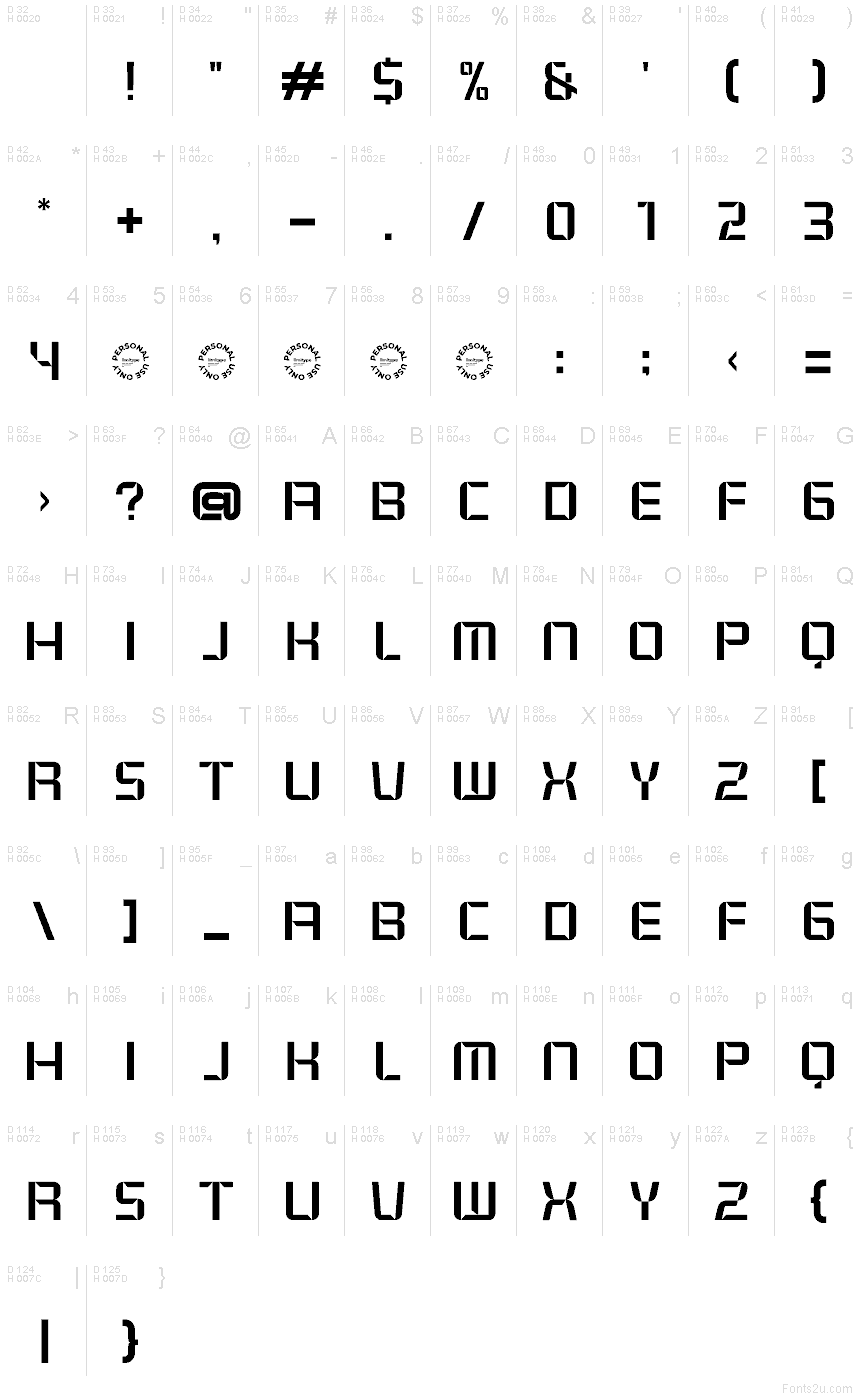
Roxta font by Limitype is a futuristic display font with an expanded style. With its modern, geometric appearance, it is all about strong presence mixed with minimalistic design elements. Discover this rarely seen font vibe and use it to make your projects stand out.
Use this free display font for clothing brand logos, video games, musical albums or posters particularly those for music events. Create notable publications and magazines’ covers book covers and social media content with its metallic professional look.